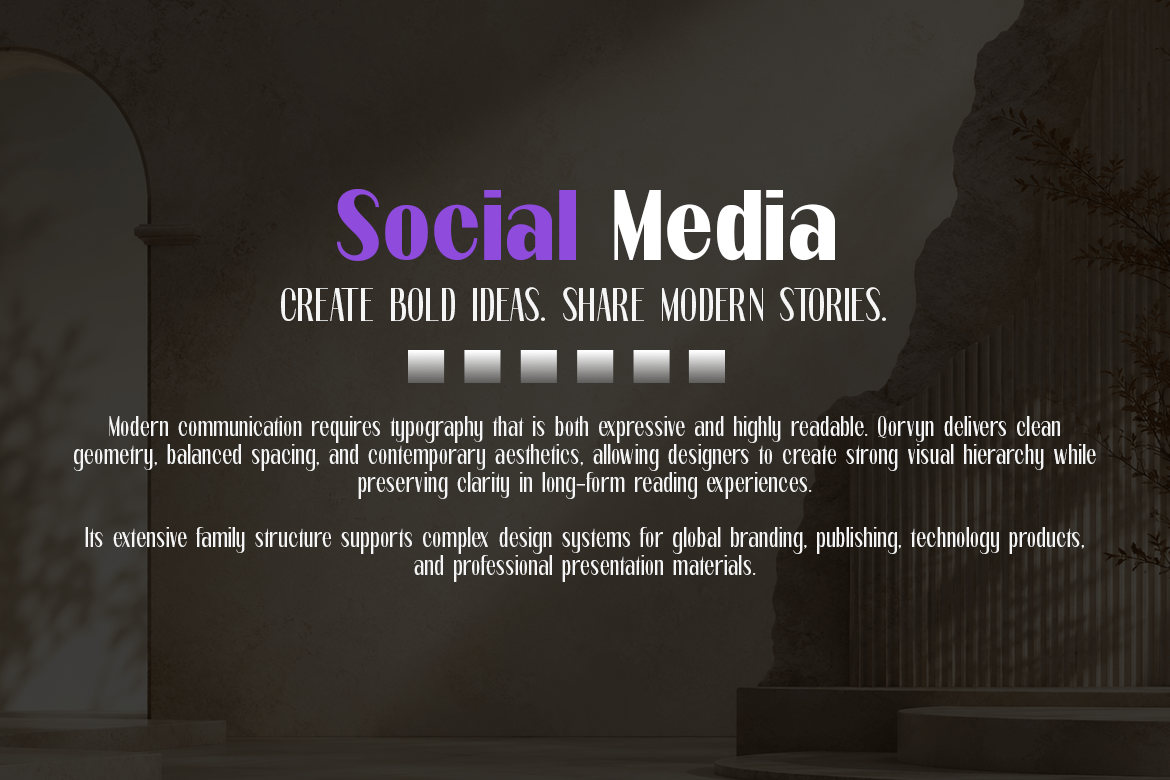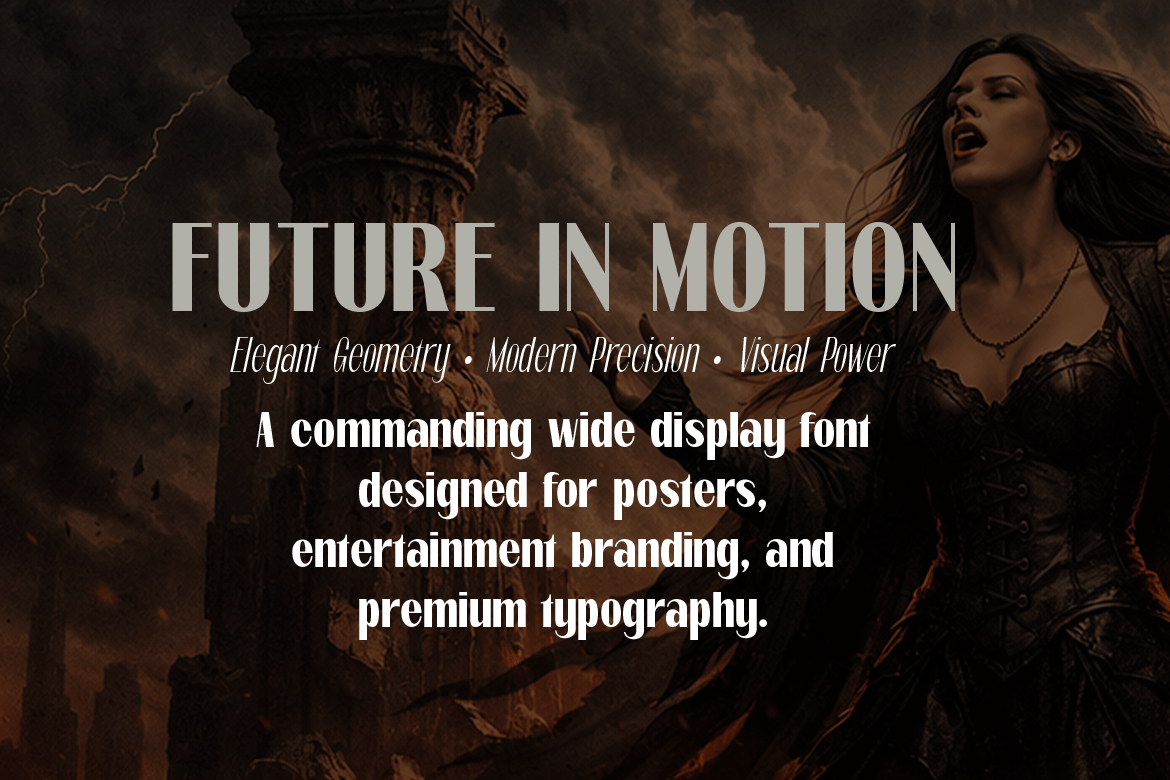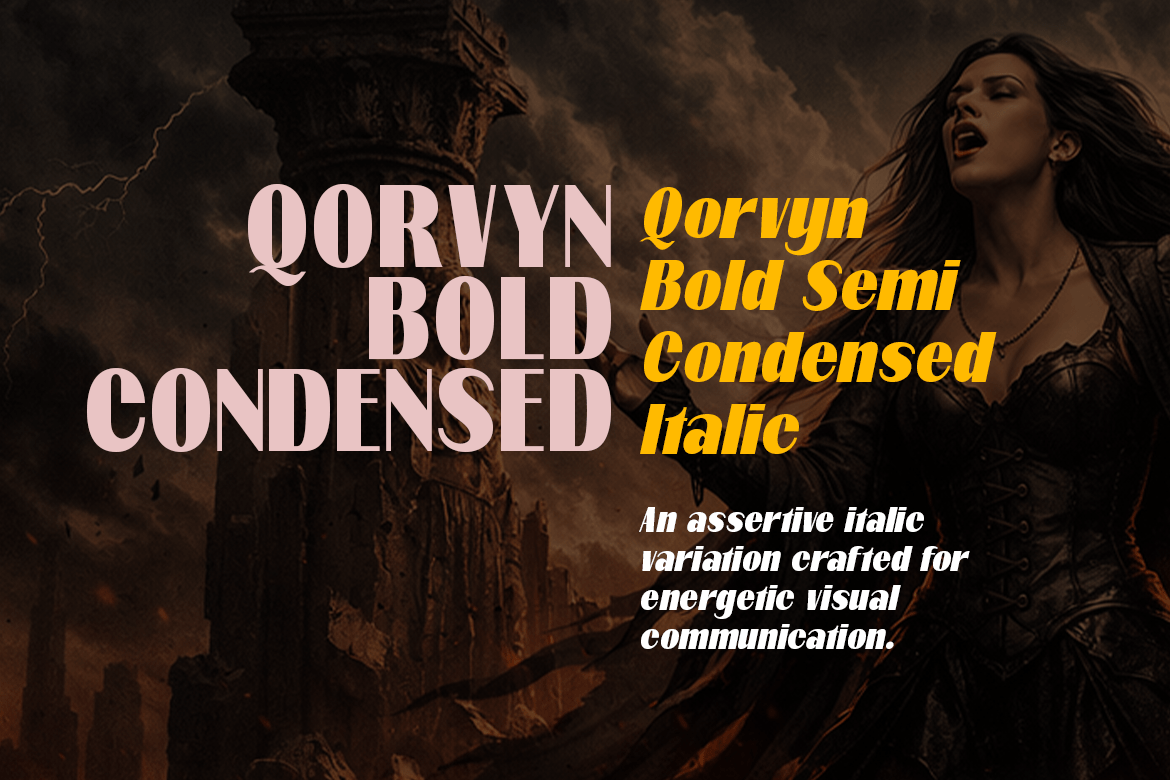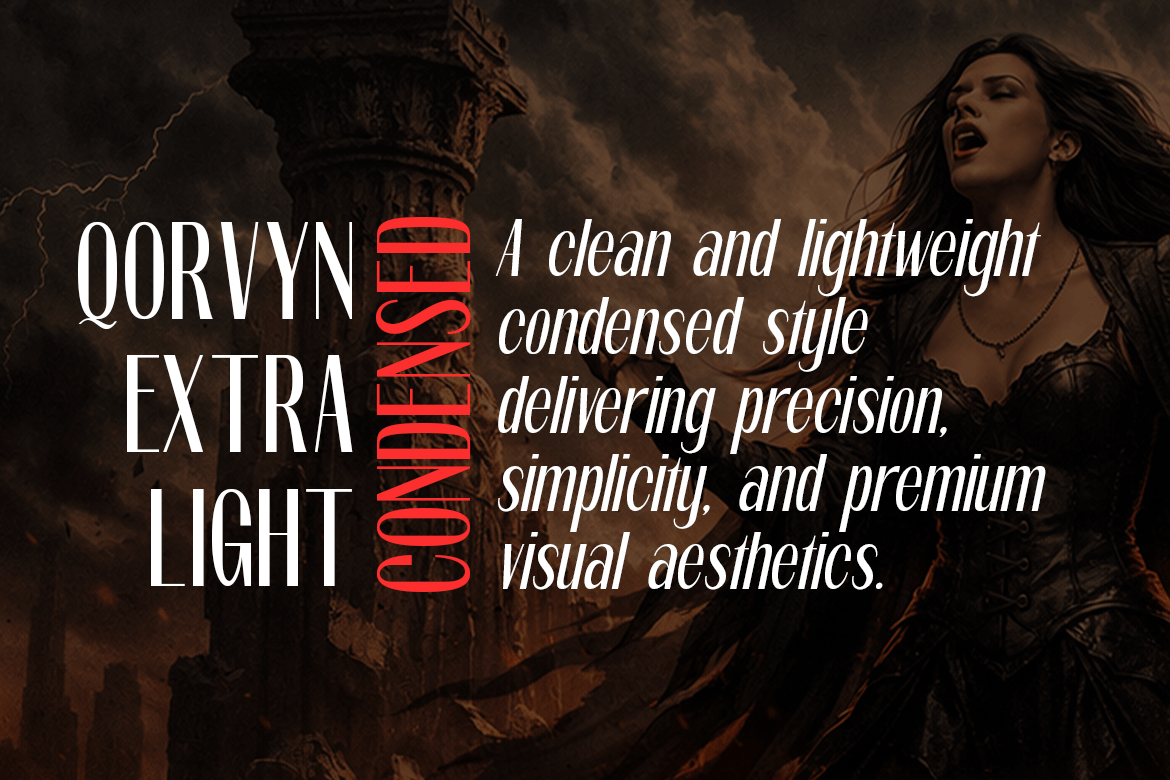
Qorvyn Condensed
Qorvyn Condensed is a contemporary sans-serif typeface family designed to combine strong presence with flexible usability. Featuring a refined condensed structure, the family offers a balanced proportion between compact efficiency and comfortable readability, making it ideal for modern branding, editorial design, advertising, user interfaces, posters, sports visuals, packaging, and digital media. The family consists of 18 styles — 9 upright and 9 italic — covering a full range of weights from thin to heavy black.
The upright styles deliver a clean, stable, and professional appearance with sharp geometric details and disciplined spacing. Meanwhile, the italic styles add movement, speed, and expressive energy, creating dynamic contrast while maintaining visual consistency across the family. Qorvyn Condensed is designed with a modern aesthetic that feels bold yet versatile, capable of performing equally well in striking headlines and structured typography systems. Its strong character, efficient width, and polished construction make it a powerful choice for contemporary creative projects.
The Qorvyn Condensed font family includes 231 glyphs.